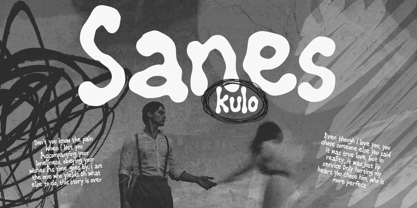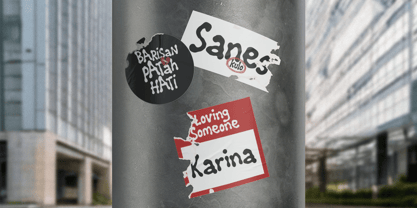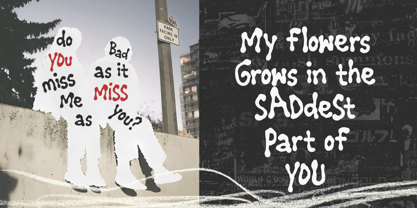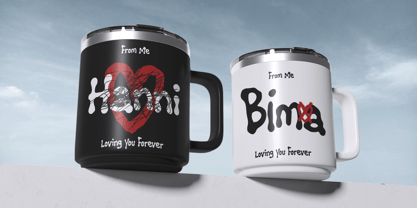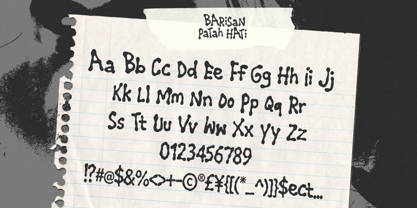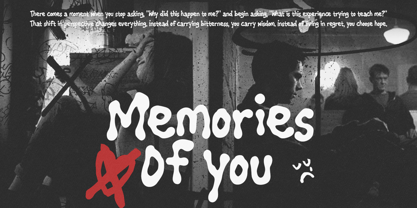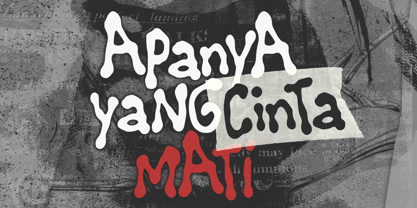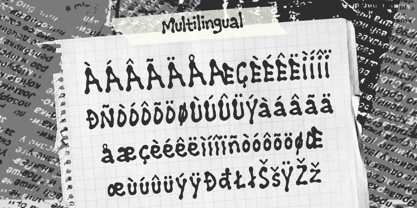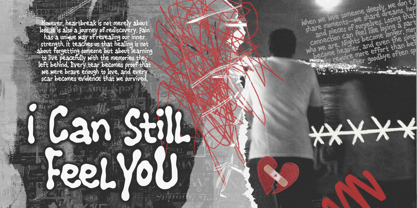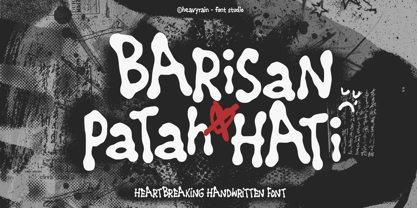
Barisan Patah Hati
Die Schriftfamilie Barisan Patah Hati wurde von Devin Bagus Kurniawan entworfen und von Heavyrain veröffentlicht. Barisan Patah Hati enthält 1 Stile. Mehr über diese Familie
Barisan Patah Hati is an expressive handwritten display font that transforms emotion into typography. Inspired by handwritten journals, underground art, alternative culture, and the raw feeling of heartbreak, it features irregular organic letterforms that embrace imperfection as part of its visual identity.
Each character is carefully crafted to preserve the natural rhythm and spontaneity of authentic handwriting, resulting in a typeface that feels deeply personal while maintaining strong readability for display applications.
Whether used for music branding, album artwork, editorial headlines, posters, apparel graphics, book covers, or creative packaging, Barisan Patah Hati delivers an emotional and artistic presence that instantly captures attention.
Its distinctive handwritten style makes it especially suitable for projects seeking authenticity, individuality, and expressive storytelling. From independent artists and musicians to modern brands looking for a human touch, Barisan Patah Hati offers a unique typographic voice that balances raw emotion with creative versatility.